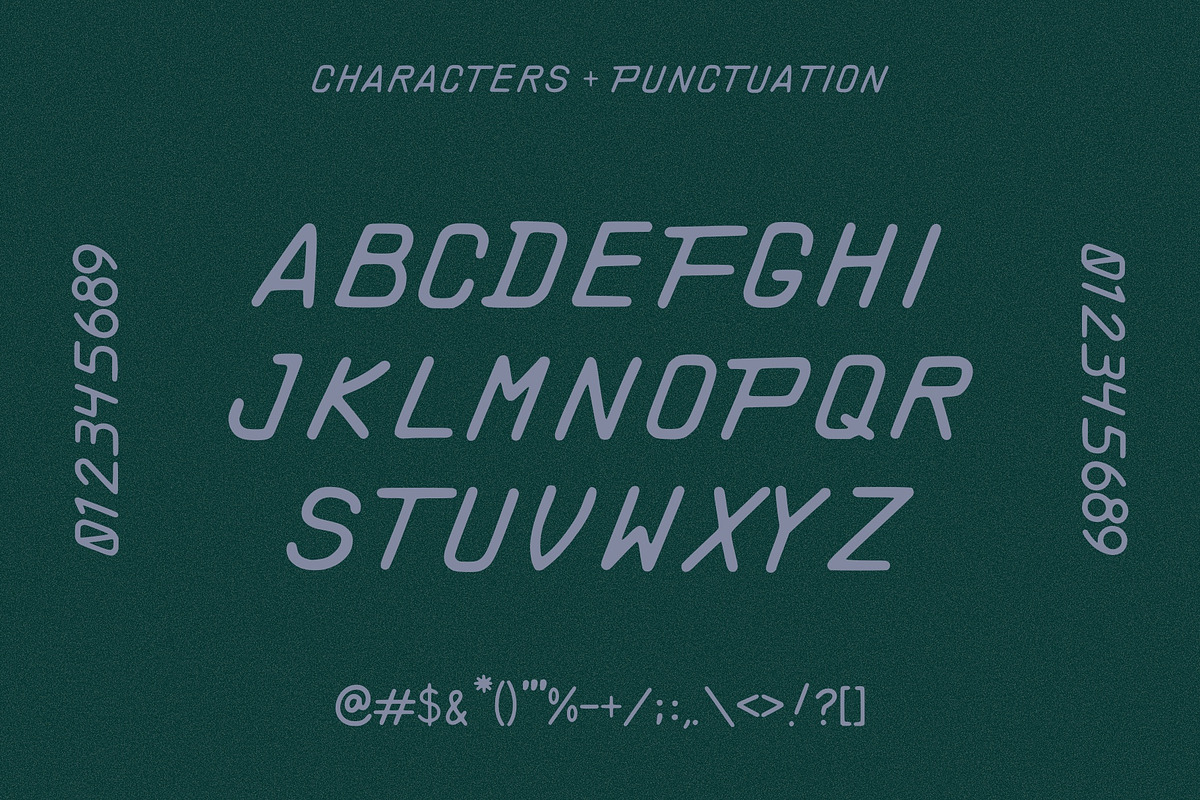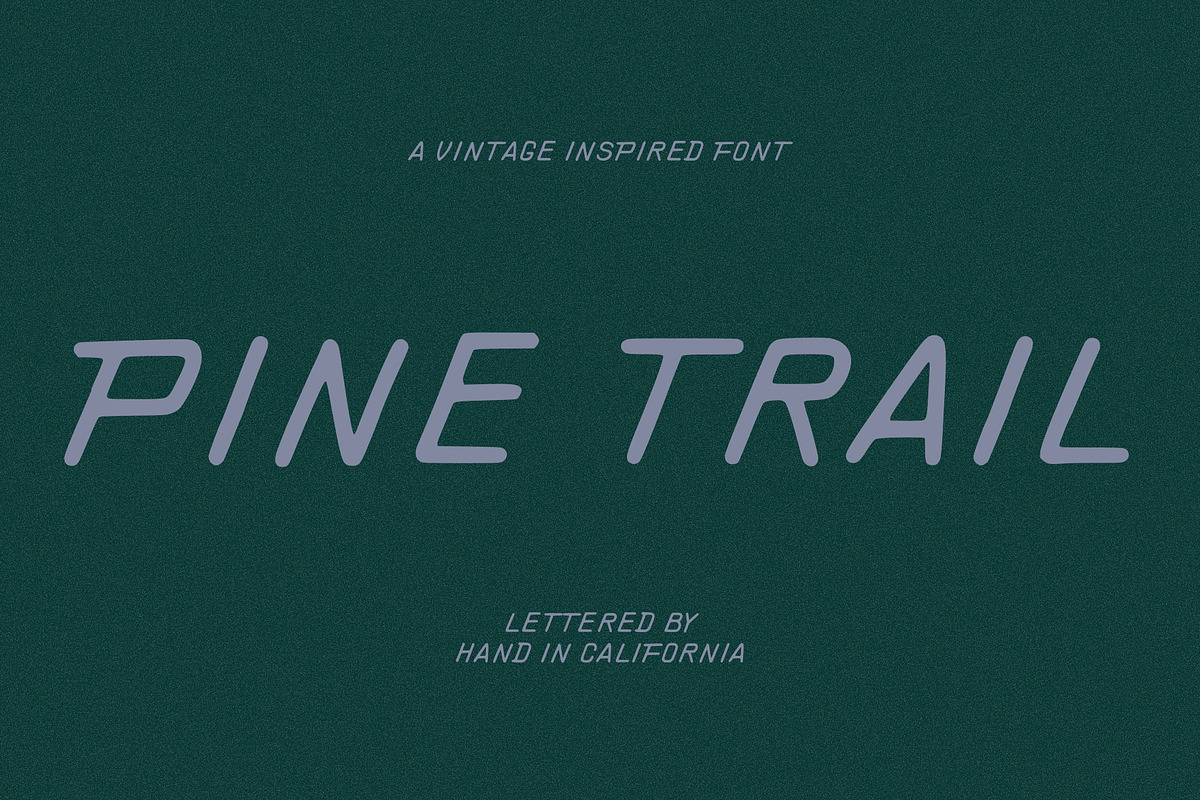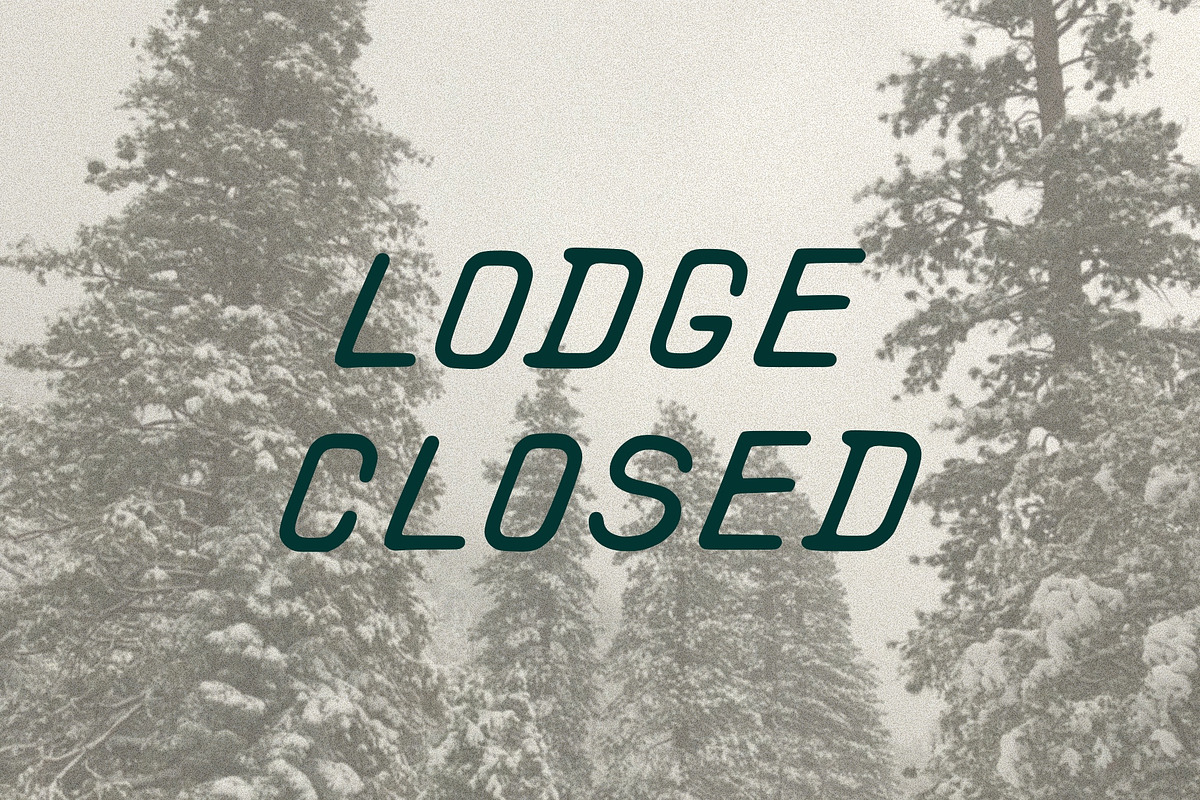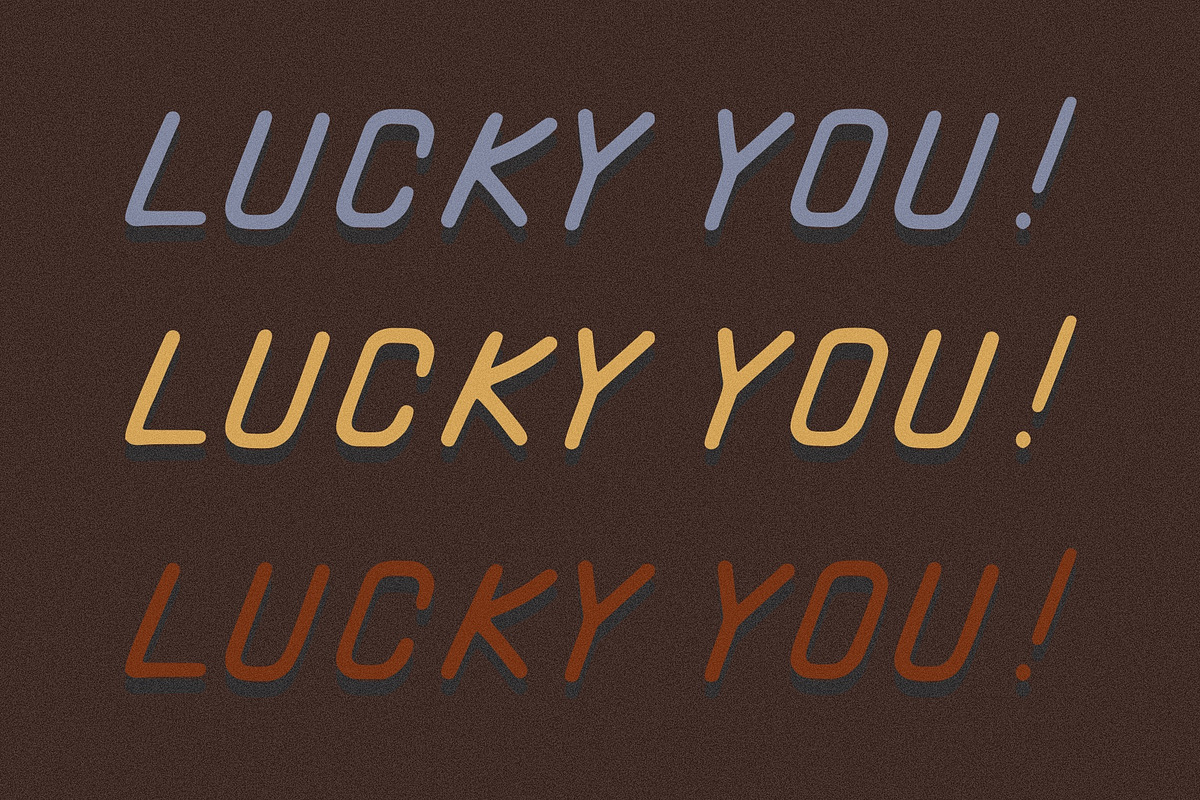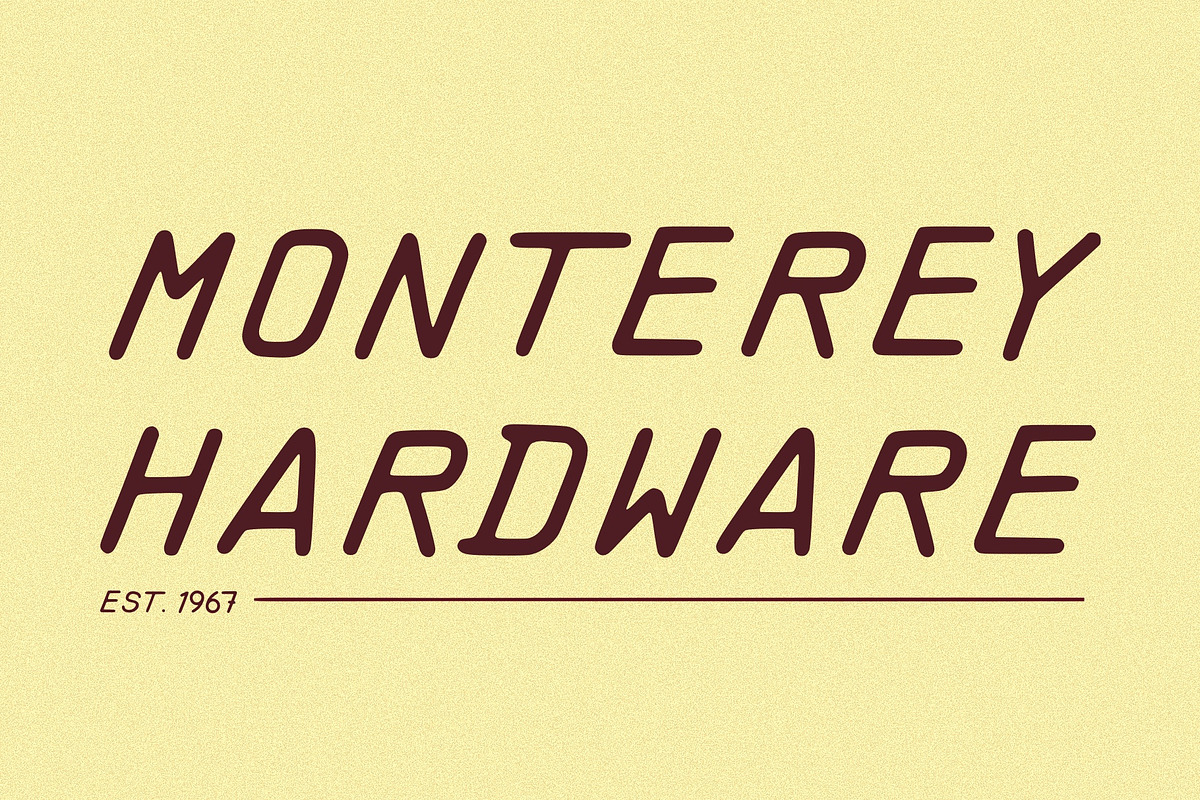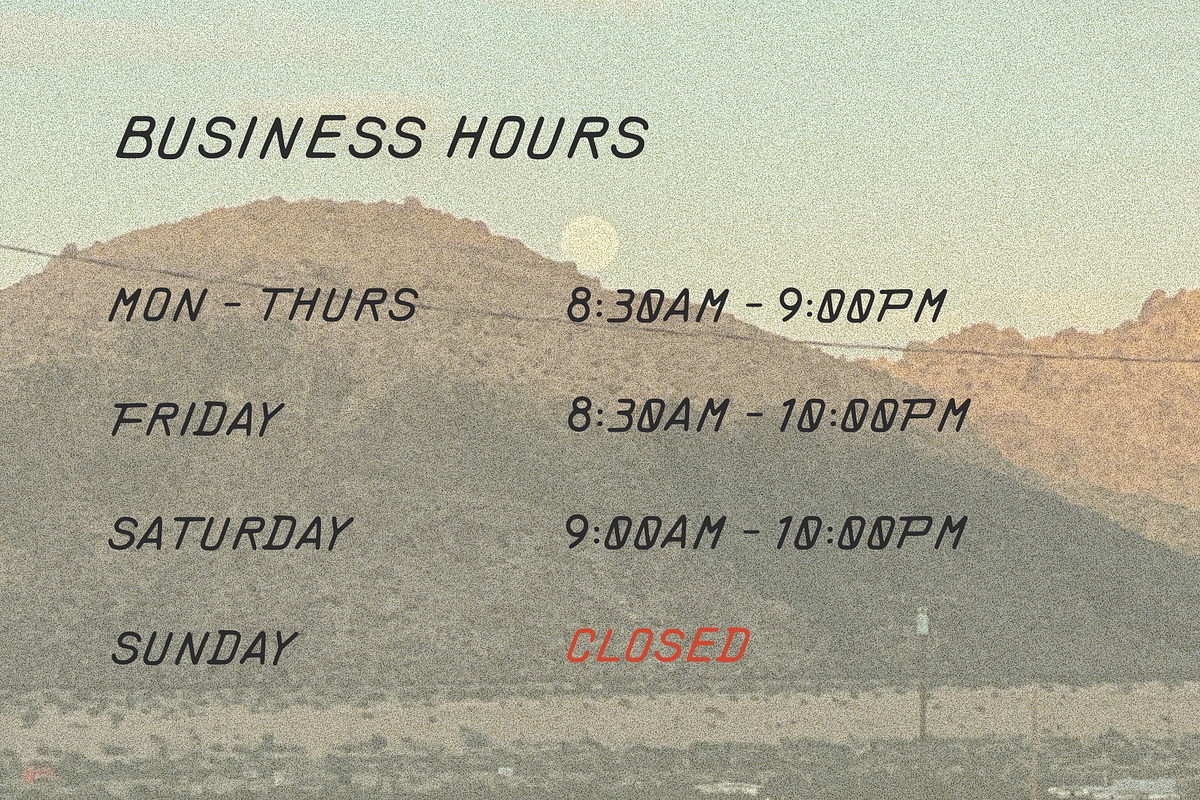
Pine Trail | Vintage Inspired Font
Pine Trail is inspired by vintage clothing tags—specifically, vintage outerwear.
This simple all caps typeface comes in 4 distress levels: Regular, Rough, Extra-Rough, and Barely-There. Each one is easy to use and fun to layer for a vintage look.